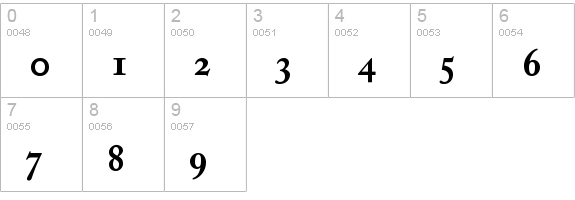
Adobe Caslon Bold Expert Font Details
Adobe Caslon Bold Expert is a strong, high-contrast variant in the Adobe typeface family \xE2\x80\x94 well suited to headlines, attention-grabbing titles, and strong calls-to-action.
Adobe Caslon Bold Expert is a classic and timeless typeface that exudes elegance and sophistication. With its robust and bold design, it commands attention and adds a touch of authority to any text. The expertly crafted serifs and clean lines make it highly readable, perfect for both print and digital media. This versatile font is suitable for a wide range of applications, including editorial design, branding, and advertising. Its bold weight makes it ideal for headlines and titles, while its clarity ensures that body text remains legible and professional. Best of all, Adobe Caslon Bold Expert is available for free download at FontsMarket.com. Whether you're a designer looking to add a touch of sophistication to your projects or a business owner seeking a refined and polished look for your branding, this font is sure to elevate your designs. Download it today and see the difference it can make in your work.